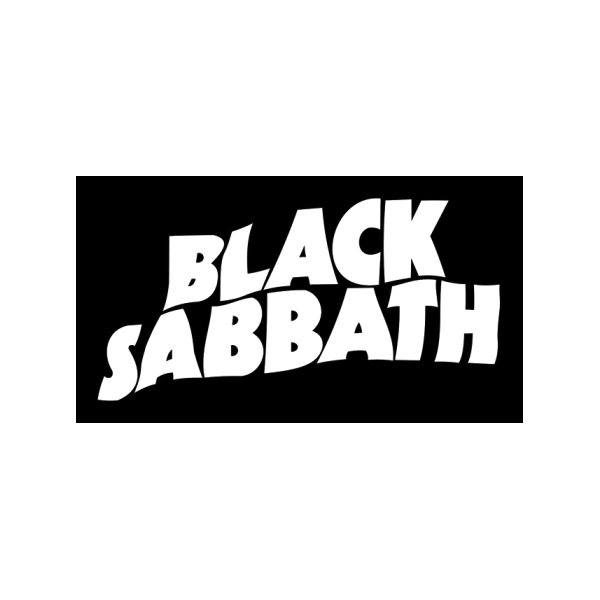
Black sabbath font is a logo font that totally based on a black sabbath album. This generator converts your text into fancy letter fonts that you can copy and paste into your instagram bio, or to anywhere else on the internet.
Still looking for the nearest example for the album title (hand drawn), there is a 'spinal tap' font but only the lower case 'a' is close. Feb 14, 2019 at 12:33. Black sabbath font rock music in 2020 black sabbath.
I digitized that font and also did a solid version that matches the black sabbath vol 4 font. As you can plainly see, neither is anywhere. The band name is lower case old english text, a fairly common letraset font in the day and easy to download now.
The font used for black sabbath logo is very similar to kabel ultra, which is a geometric sans serif font designed by rudolf koch and published by itc. It’s an english rock band formed in birmingham for the first time since 1968. The original of that font is gadget lined, a dry transfer font from zipatone.